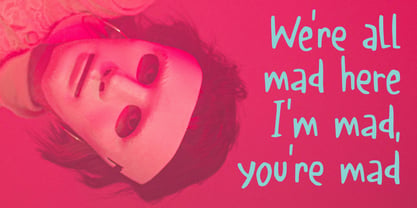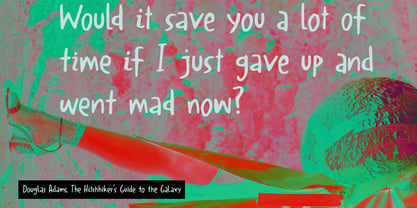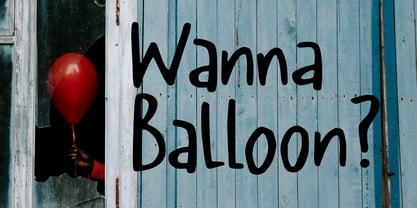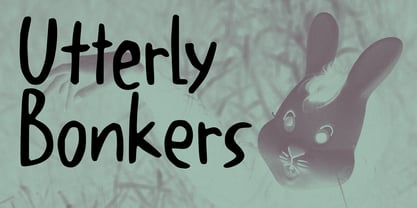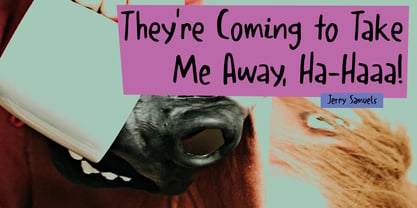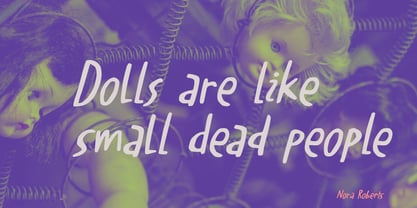
Utterly Bonkers Pro
by Hanoded
The Utterly Bonkers Pro Font Family was designed by David Kerkhoff and published by Hanoded. Utterly Bonkers Pro contains 2 styles and family package options. More about this family
Utterly Bonkers is a British expression, meaning: ‘completely crazy’. I am reading The Hitchhikers Guide To The Galaxy series (a 5 book trilogy by Douglas Adams) and to say it’s completely bonkers is an understatement. I love it though!
Utterly Bonkers was made using a cheapo marker pen and a piece of rough paper. It comes with extensive language support and a really nice set of alternates for the lower case glyphs. As if by magic, these alternates cycle as you type!
Hanoded is run by Dutchman David Kerkhoff. His fonts are a mishmash of styles, as he just creates whatever pops into his head. You will find a lot of brush fonts in his collection, as his favourite tools are brushes and Chinese ink, with cartoon style fonts and script fonts complementing his repertoire. Aside from making fonts, David occasionally guides tours in far-flung places, renovates his '30's house and tries reasoning with his wife and (teenage) kids. Not an easy task!